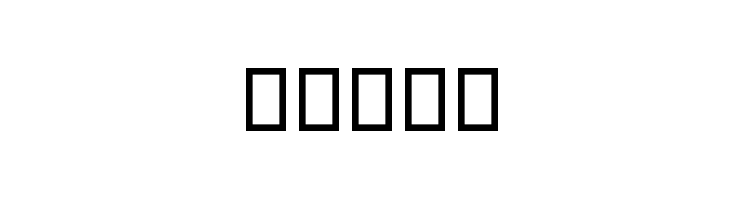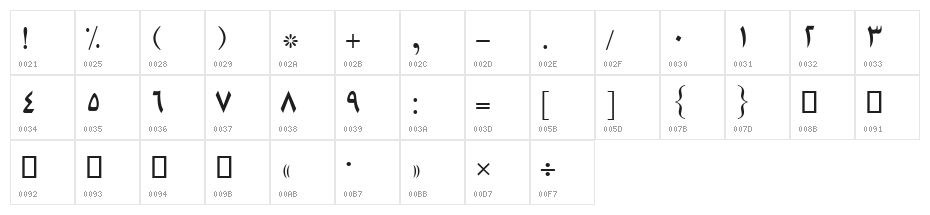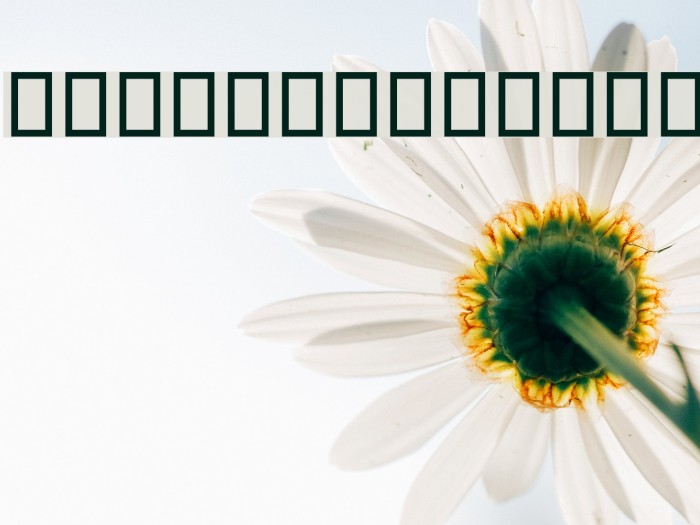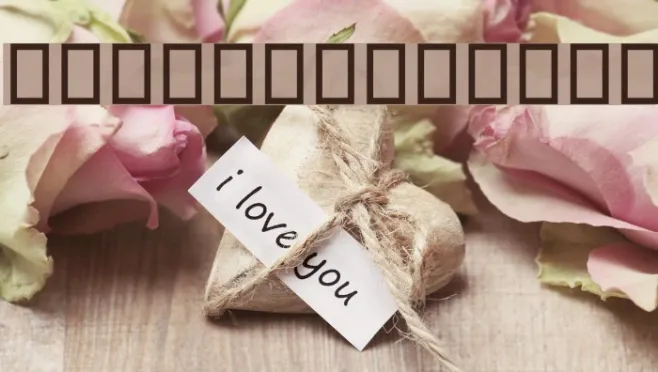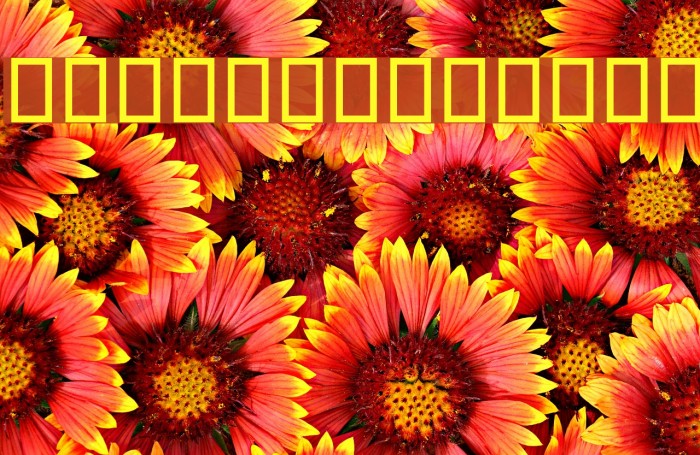
Bitaa Font
Bitaa Description
This font features a unique, stylized design reminiscent of traditional calligraphy with a modern twist. The characters are crafted with a fluid, flowing style that incorporates sharp angles and curves, creating a dynamic and artistic appearance. The numerals and special characters maintain this aesthetic, offering a cohesive look across all glyphs. The font's distinctiveness makes it suitable for creative projects that require a touch of elegance and flair.
Overall StyleModern, Artistic
Use CaseLogos, Invitations, Decorative text
Proposed ProjectsIdeal for artistic projects, branding, invitations, and decorative purposes.